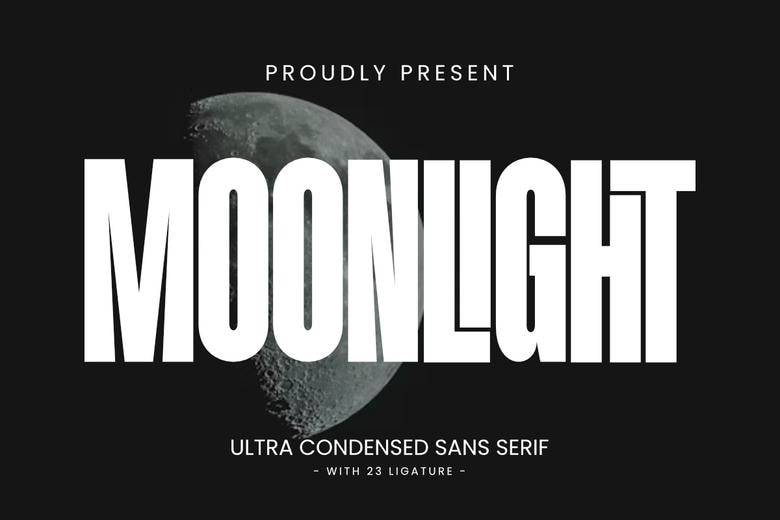
Moonlight Sans Serif Font
Moonlight is an ultra-condensed sans-serif font that allows your creative projects to shine. It is ideal in t-shirt design, poster, craft, Cricut, logos, and so on. Moonlight has 23 different ligatures that will provide your design with a heavy modern edge and remain print and digital friendly.